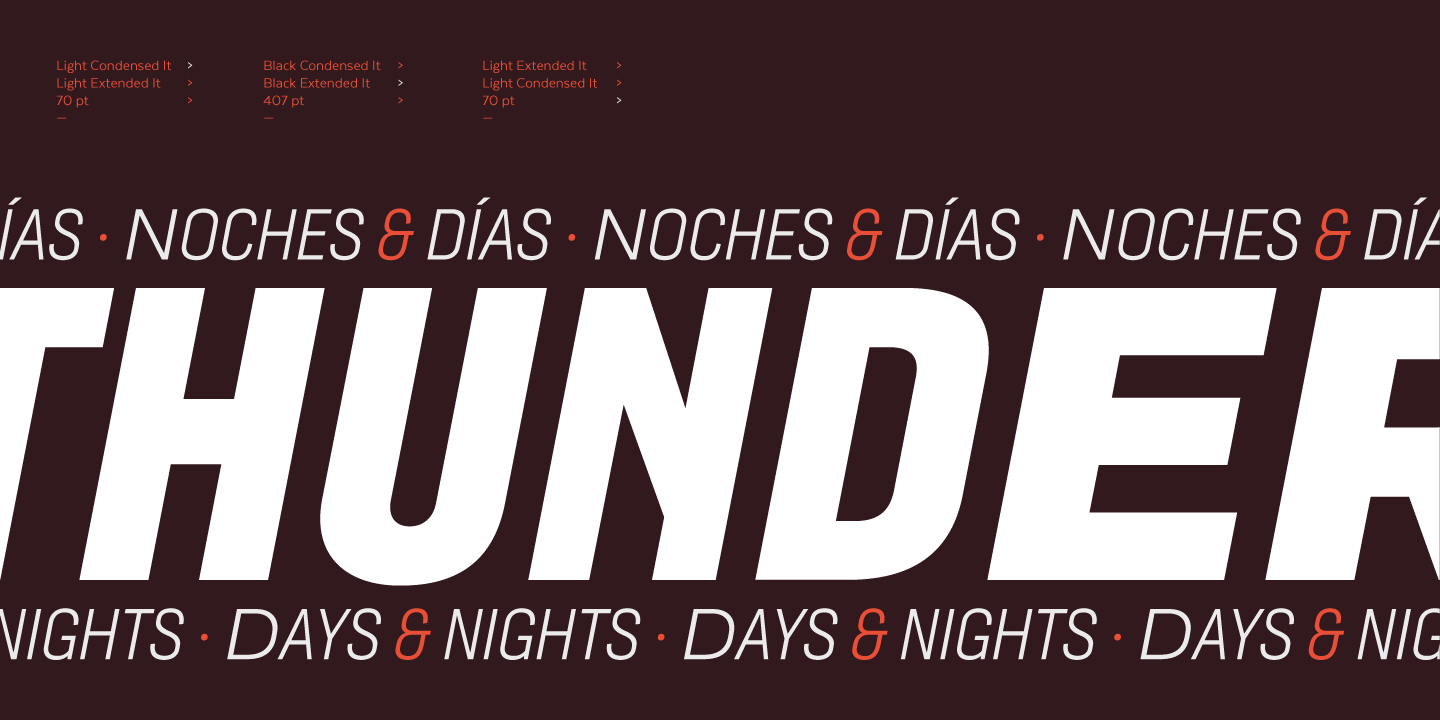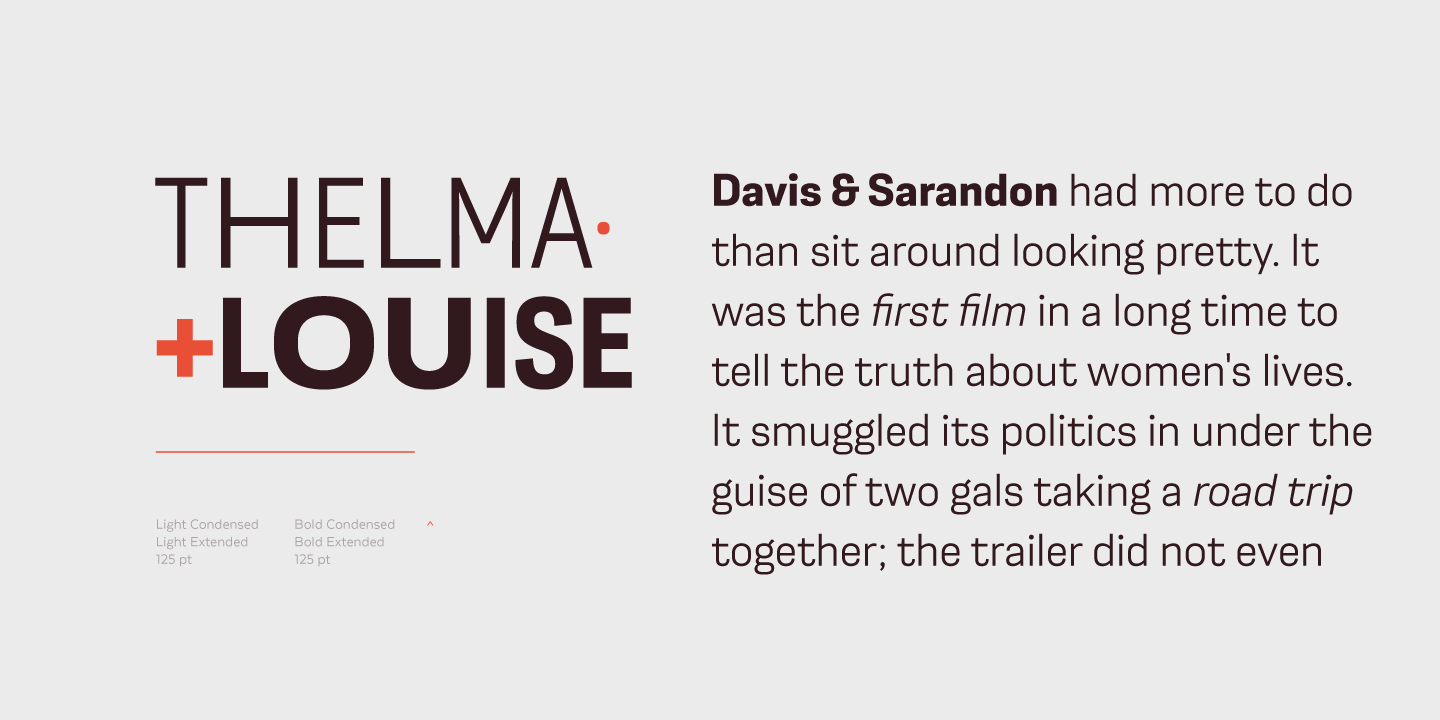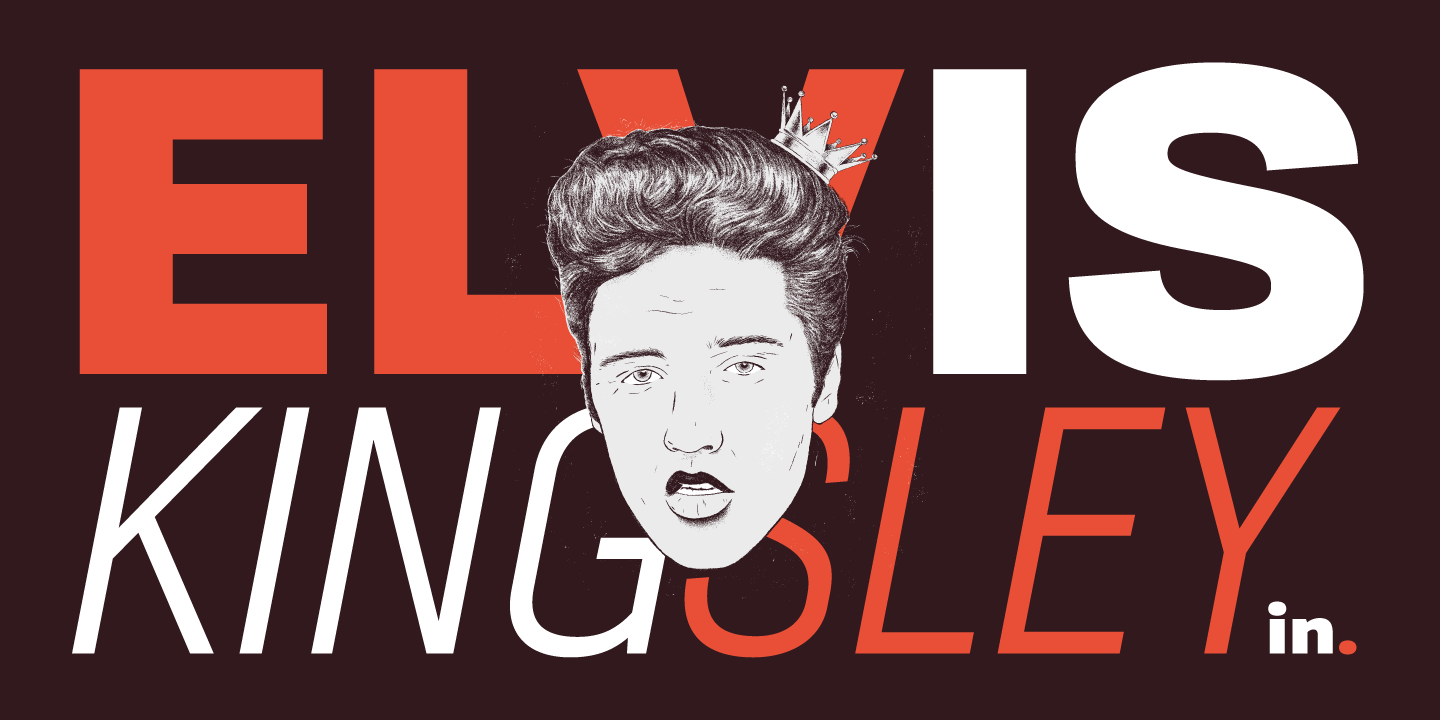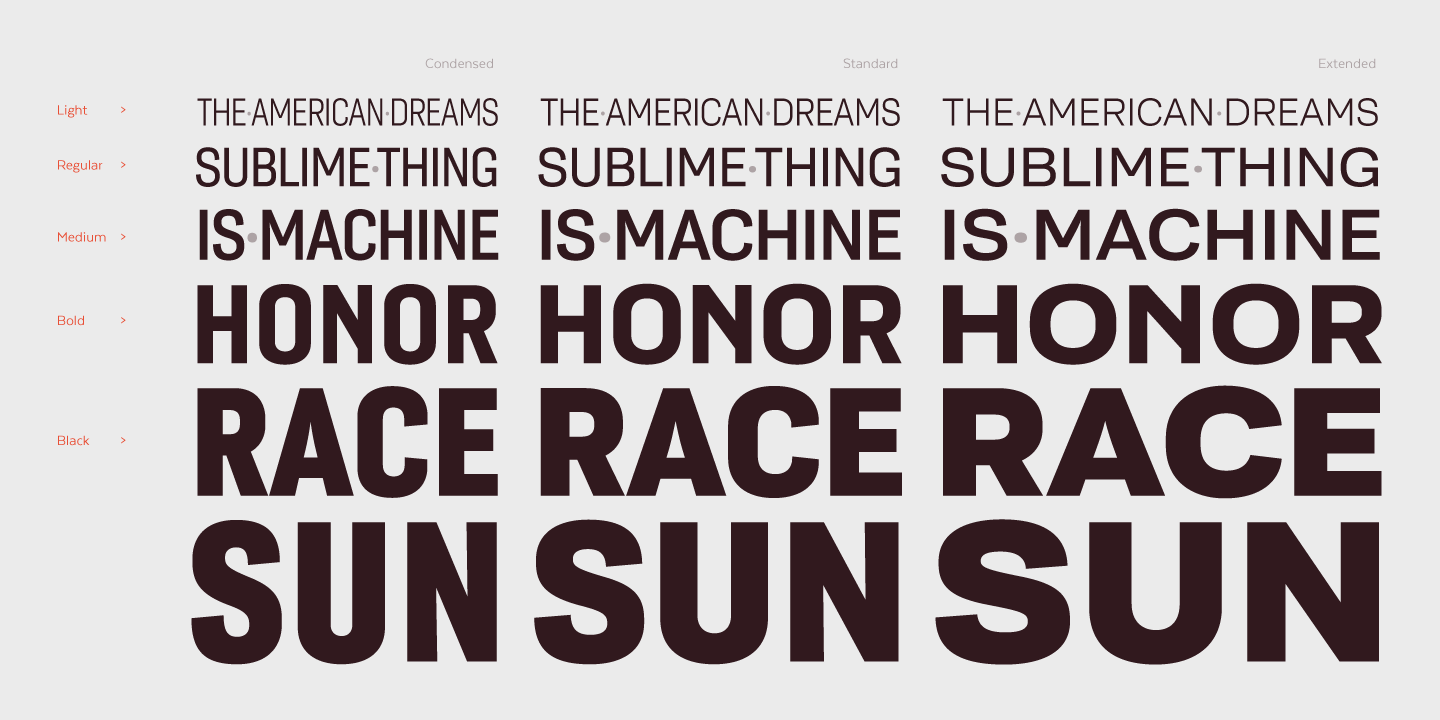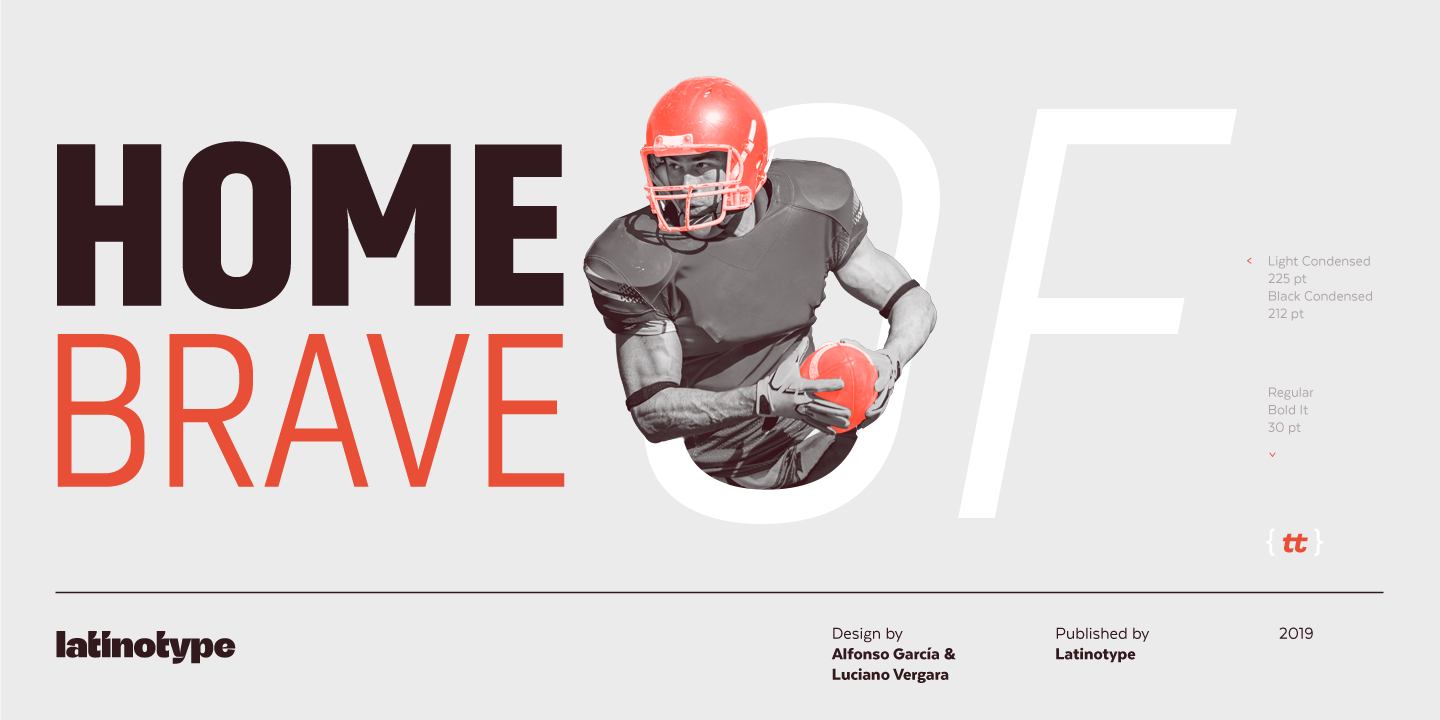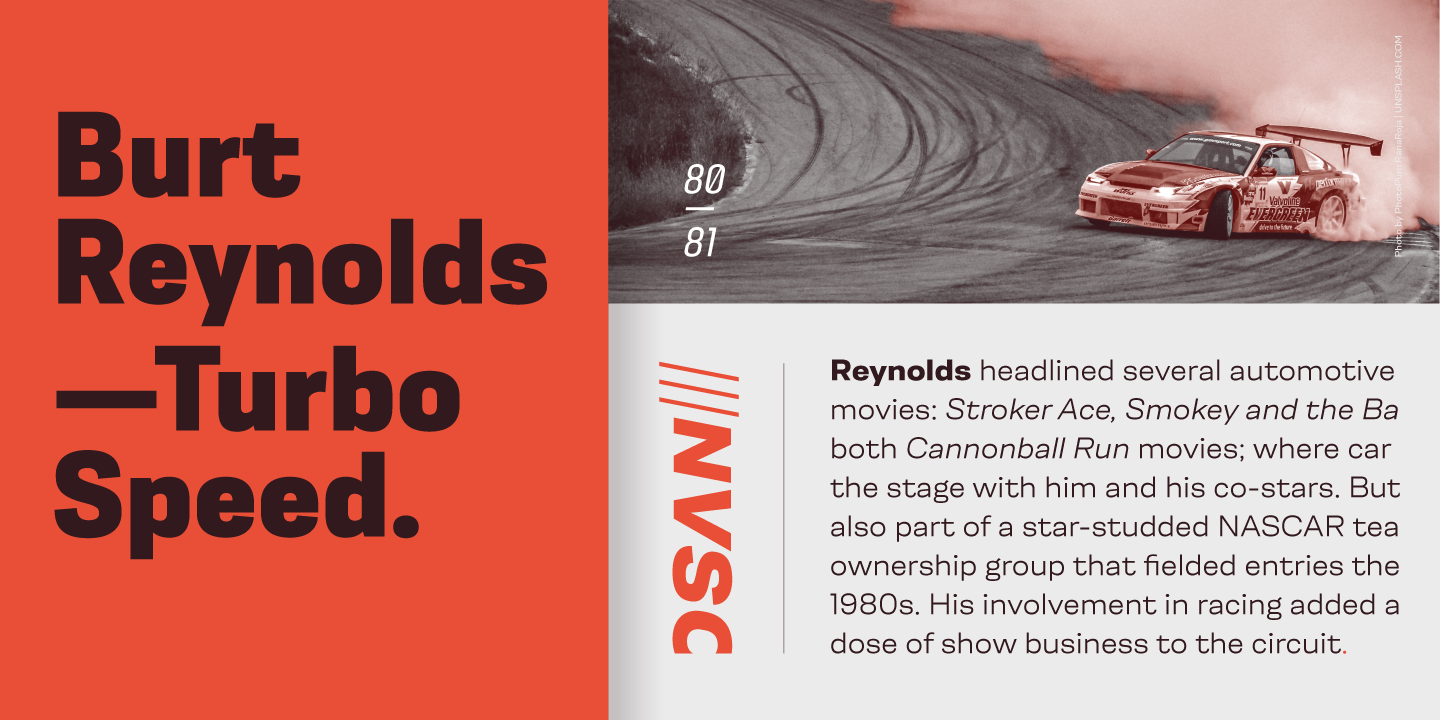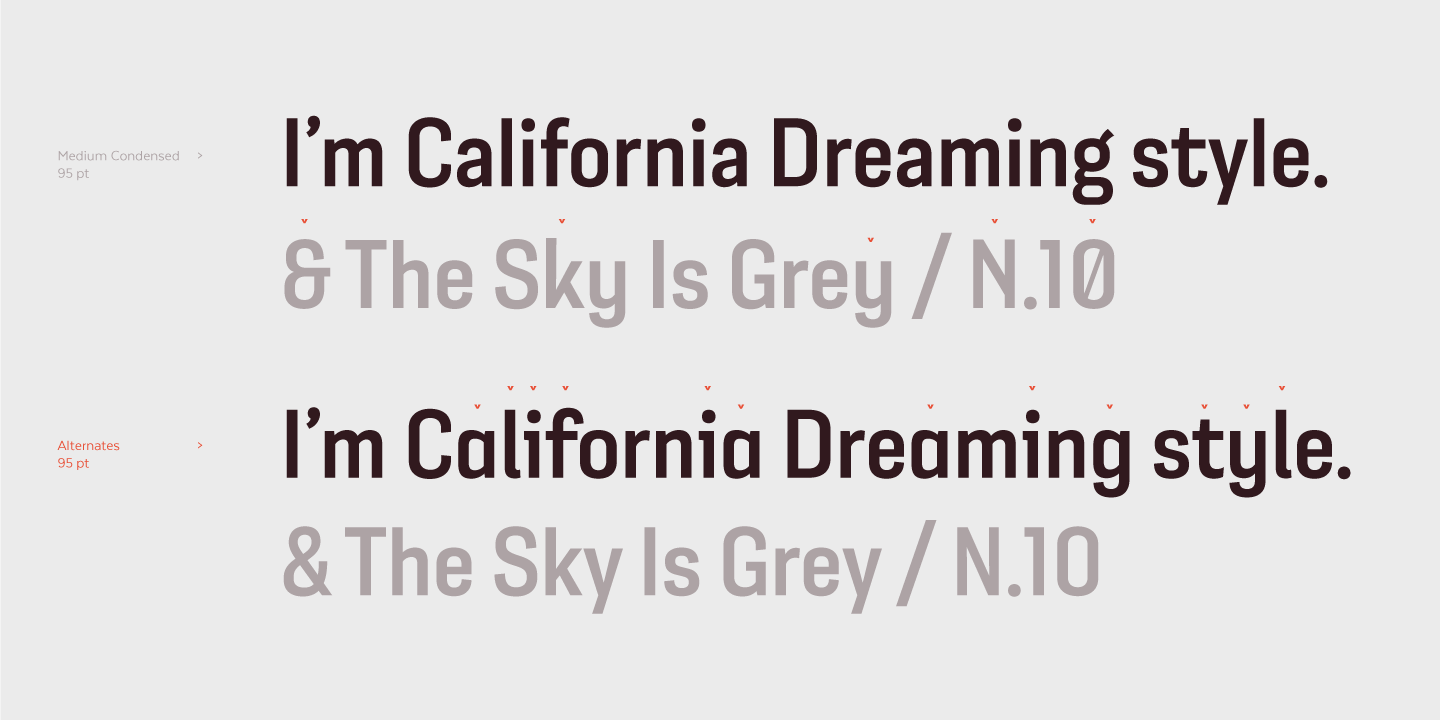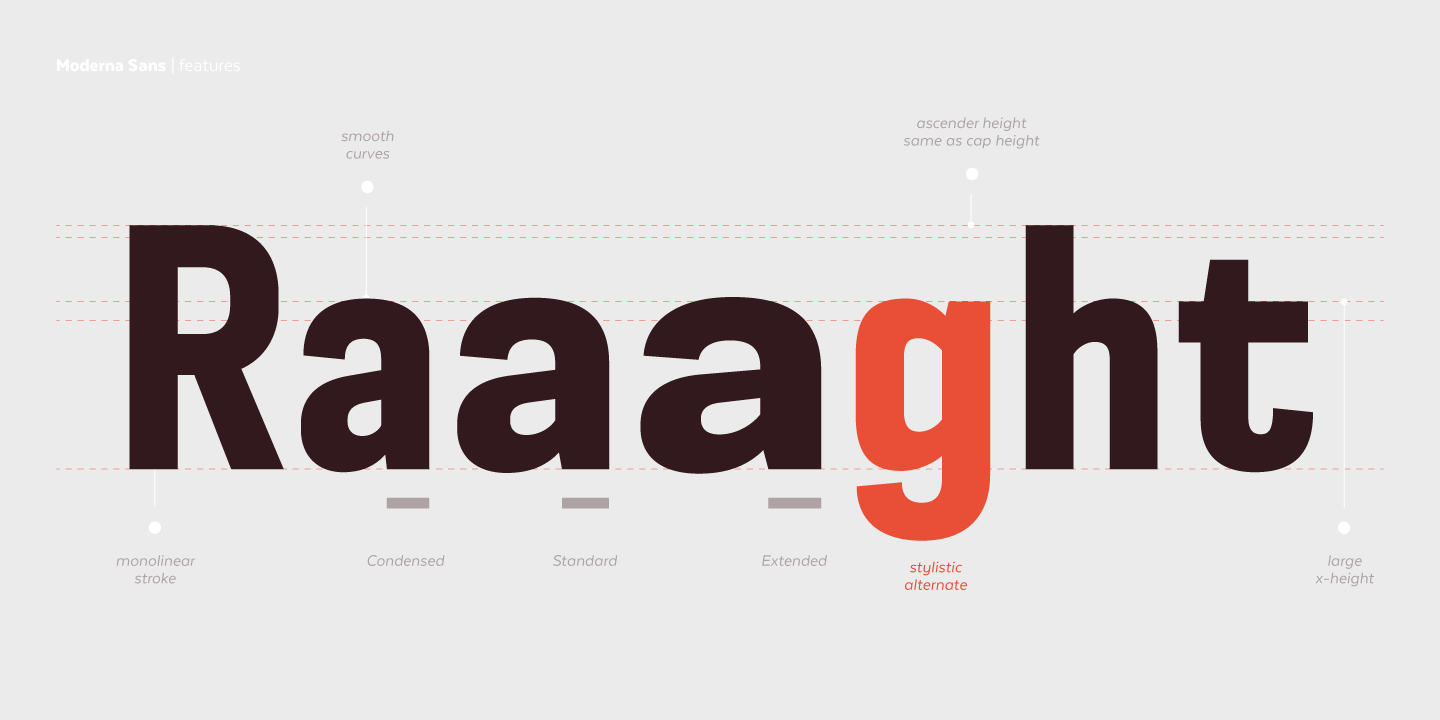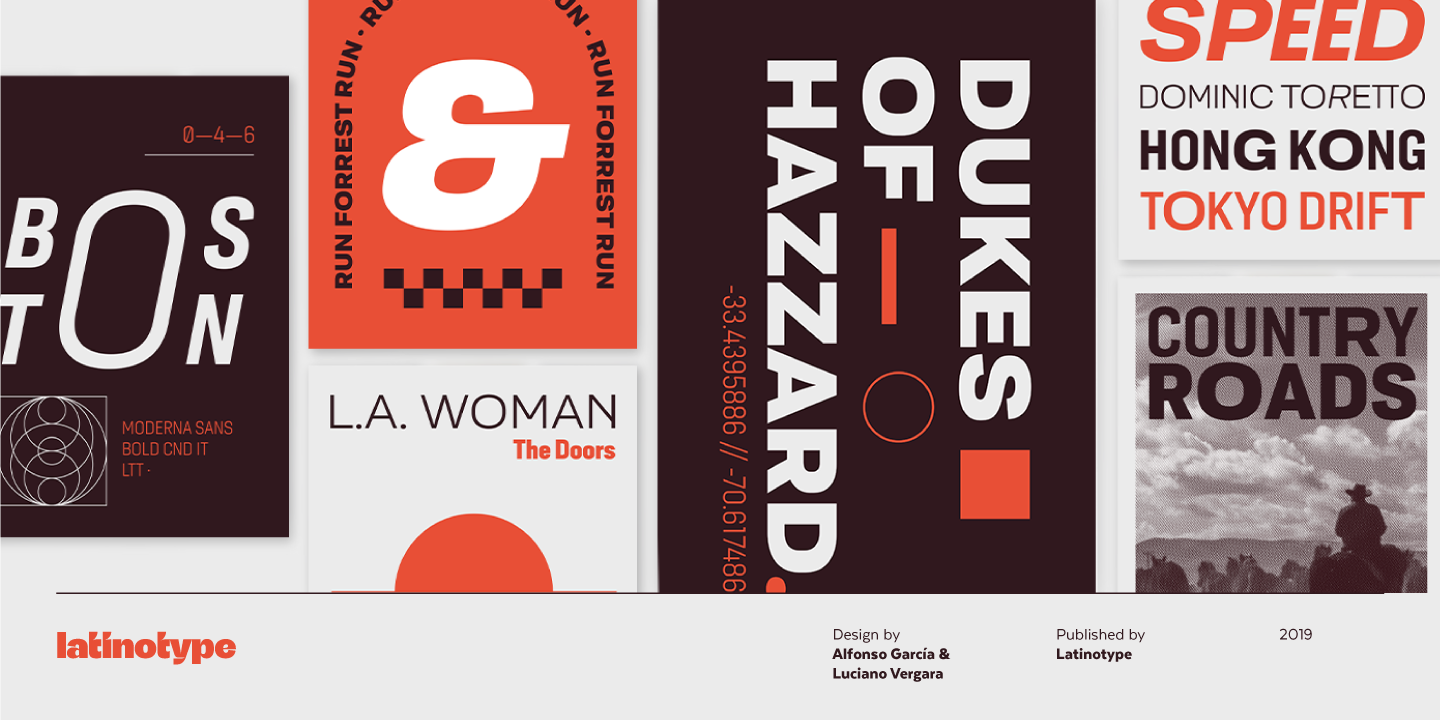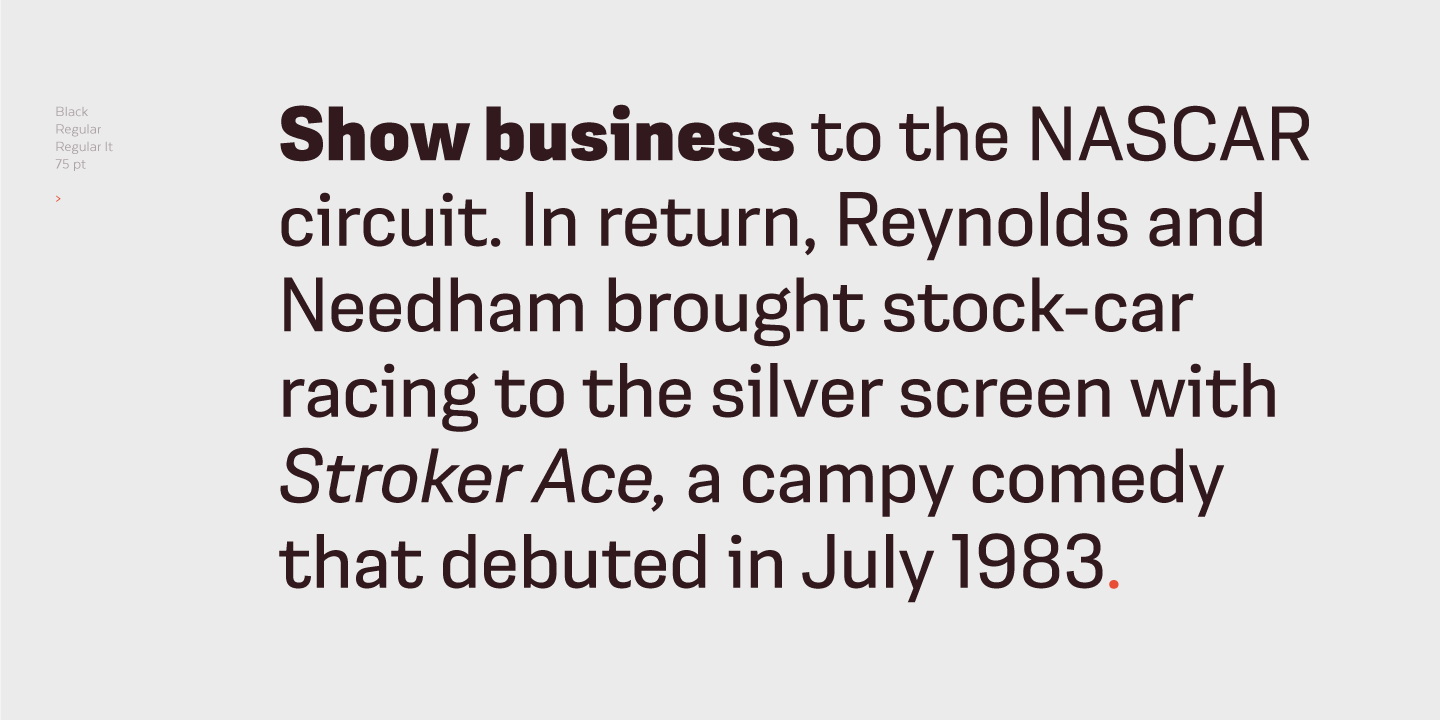
Moderna Sans Complete Family (30 fonts)
Moderna Sans is an excellent choice for branding and corporate design and a versatile 3-width workhorse suitable for newspaper or magazine headlines and subheadings. Moderna Sans was designed by Luciano Vergara in collaboration with Alfonso García.